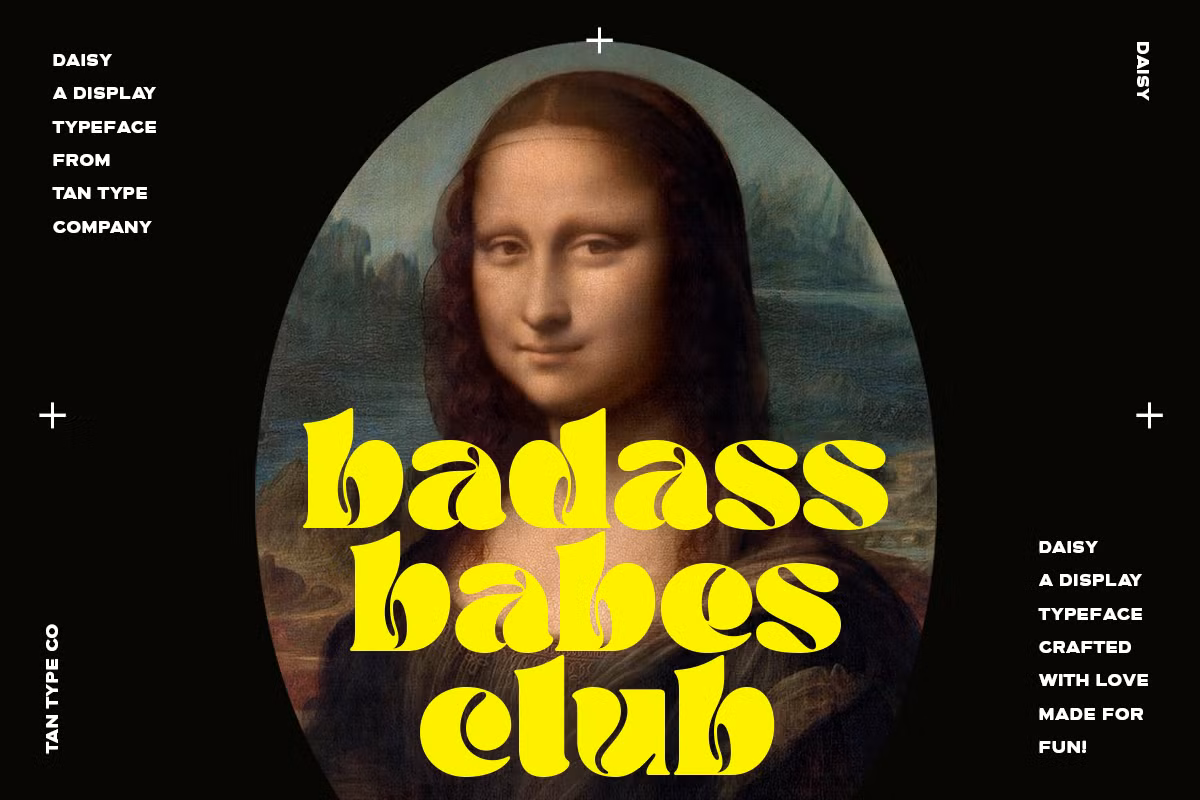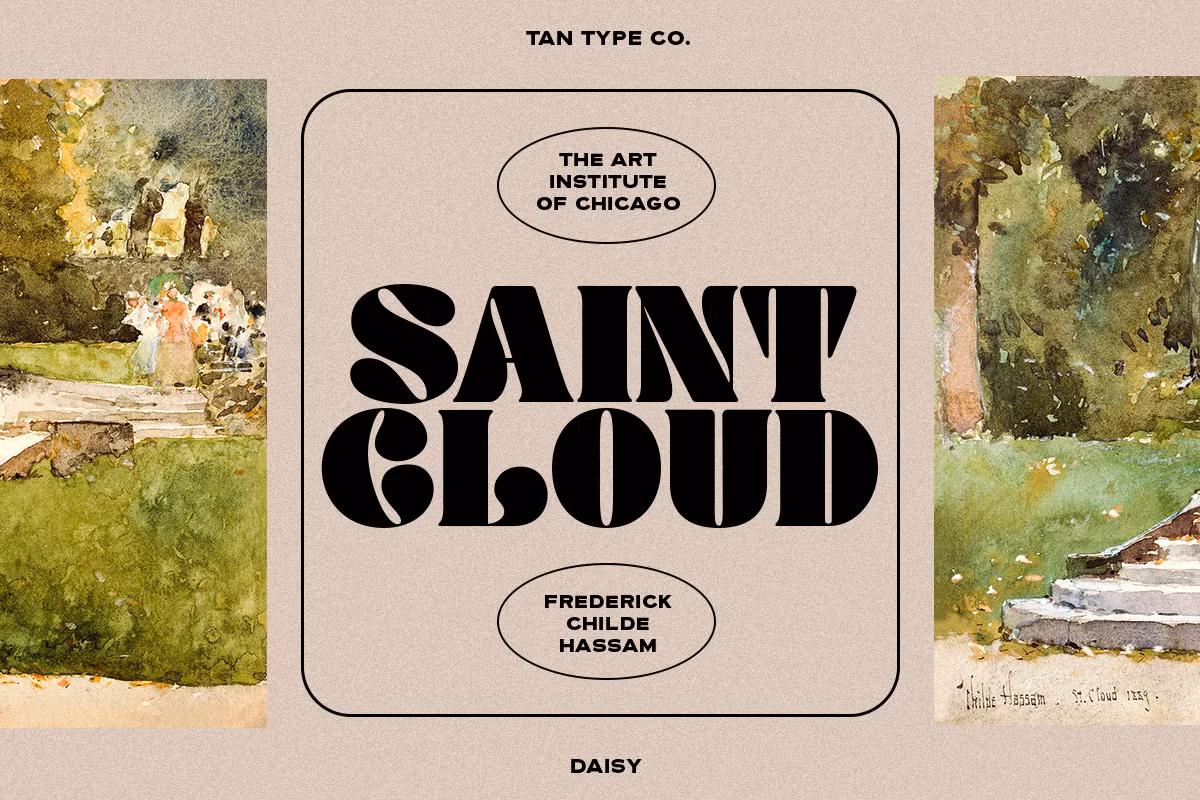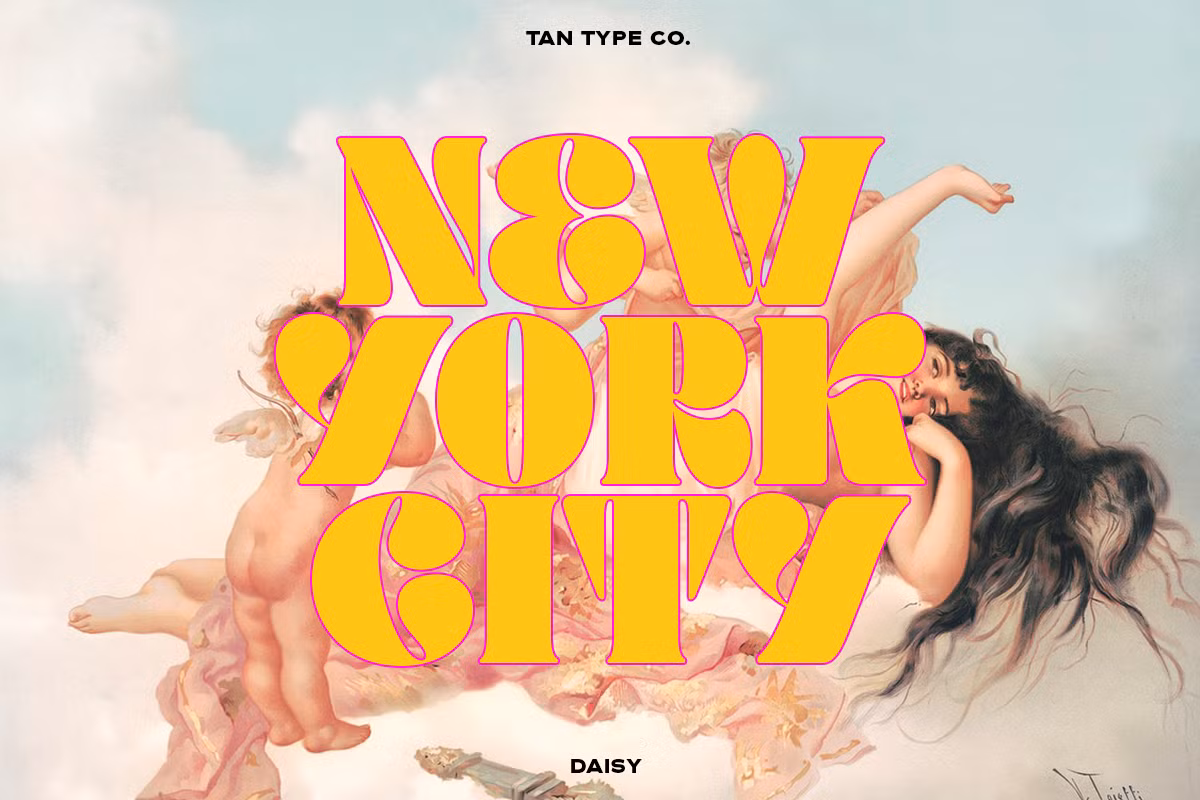
TAN – DAISY: Bold Retro Display Typeface for Creative Projects
TAN-DAISY is more than just a font – it’s a fun way to add some old-school style to your designs. This eye-catching font has a lot of personality, with a cool and quirky feel that makes it great for all sorts of creative projects. The thick lines and bold look of TAN-DAISY give your designs a playful but also sophisticated touch, making it perfect for anyone who wants to stand out. Whether you’re working on a poster, a logo, or something else entirely, TAN-DAISY is a great choice if you want to add some personality to your design. It’s a unique and charming font that’s sure to grab people’s attention and make your project more interesting.
With its bold and funky style, TAN-DAISY is a great way to add some excitement to your designs and make them more memorable.
The TAN-DAISY design has a fun, old-school feel to it, like the crazy, colorful fonts you’d see back in the 60s and 70s. What makes it really special is its playful, offbeat vibe, with soft edges and shapes that are a bit over-the-top – this gives it a one-of-a-kind personality that grabs your attention wherever you see it.
This font really grabs your attention, which makes it perfect for things like headings, posters, and branding materials when you want to show off a fun and creative side. The bold style of TAN-DAISY means it will always stand out, and its old-school look gives off a cozy and familiar feel. It’s great for making a statement and adding some personality to your designs. Whether you’re working on a project that needs a bit of whimsy or just want to add some visual interest, TAN-DAISY is a great choice because it’s unique and eye-catching.
TAN-DAISY is really versatile, so it can be used in lots of different situations, like kids’ books that are fun and colorful, or menus for cool cafes. What makes it special is that it looks great both on screens and on paper, which gives designers a lot of options to catch people’s attention.
Character Sets
TAN-DAISY is a really versatile font that can be used for all sorts of design projects. It’s got a huge range of characters, including uppercase and lowercase letters, numbers, and all the important punctuation marks. Plus, it’s got lots of special characters too, so you can add some personality to your text and make sure it gets your message across. Whether you’re working on a big project or just need a font for a small job, TAN-DAISY is a great choice because it’s so flexible and can be used in lots of different ways.
The inclusion of stylistic alternates and ligatures allows designers to further customize their typography. This feature enables you to create a more unique look by alternating certain letters or combining characters for a smoother visual flow. Whether you’re crafting a catchy slogan or an engaging headline, TAN-DAISY’s character options provide ample room for creativity.
TAN-DAISY’s characters are also designed to work well together, so your text is easy to read and still stands out. This is really important for display typefaces, where you want to make a big impact and still be clear.
TAN-DAISY is a typeface that shines in various creative applications. Here are some popular use cases:
- Branding: Use TAN-DAISY in logos and brand identities to evoke a sense of fun and creativity. Its bold nature helps brands stand out in a competitive market.
- Posters and Flyers: Perfect for event promotions, TAN-DAISY grabs attention. Whether it’s a music festival or a local art show, this typeface sets the tone.
- Packaging: For products aimed at a youthful audience, TAN-DAISY can enhance packaging designs, making them more appealing and engaging.
- Social Media Graphics: Utilize TAN-DAISY in social media posts to create eye-catching graphics that encourage engagement and shares.
Overall, the bold and playful nature of TAN-DAISY allows it to be used across various platforms and mediums, ensuring that your designs always resonate with your audience.
When it comes to typography, pairing fonts is crucial for achieving a harmonious design. TAN-DAISY works exceptionally well when paired with contrasting typefaces that complement its bold and quirky style. Here are some pairing suggestions:
- Serif Fonts: Pair TAN-DAISY with a classic serif typeface like Georgia or Playfair Display. The contrast between the bold display type and the elegant serif creates a visually appealing balance.
- Sans-serif Fonts: For a fresh and modern look, try pairing TAN-DAISY with a simple sans-serif font like Helvetica or Montserrat.
- Handwritten Fonts: For a playful touch, mix TAN-DAISY with a handwritten font like Pacifico or Dancing Script.
Experimenting with different pairings will allow you to discover the perfect combination that enhances your design while showcasing the charm of TAN-DAISY.
It’s a great way to make your designs pop and leave a lasting impression. So why not give TAN-DAISY a try and see what kind of amazing things you can create with it? Whether you’re a seasoned designer or just starting out, this font is sure to bring a smile to your face and inspire you to think outside the box. So go ahead, embrace the retro vibe of TAN-DAISY and let your creativity run wild!